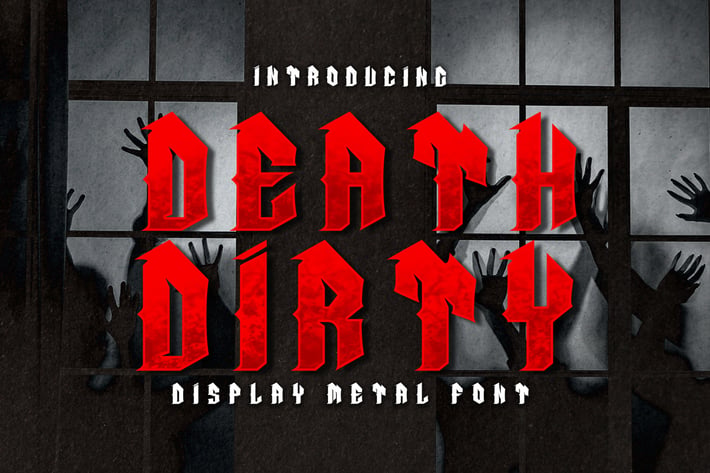
Death Dirty Modern Blackletter Graffiti Font
Death Dirty modern Blackletter Graffiti Font is a distinct, highly detailed, and Horror Metal Font font. It would make a great choice for exquisite Music, Poster, retro-urban designs, tattoo business branding, logos, vintage designs, and more.